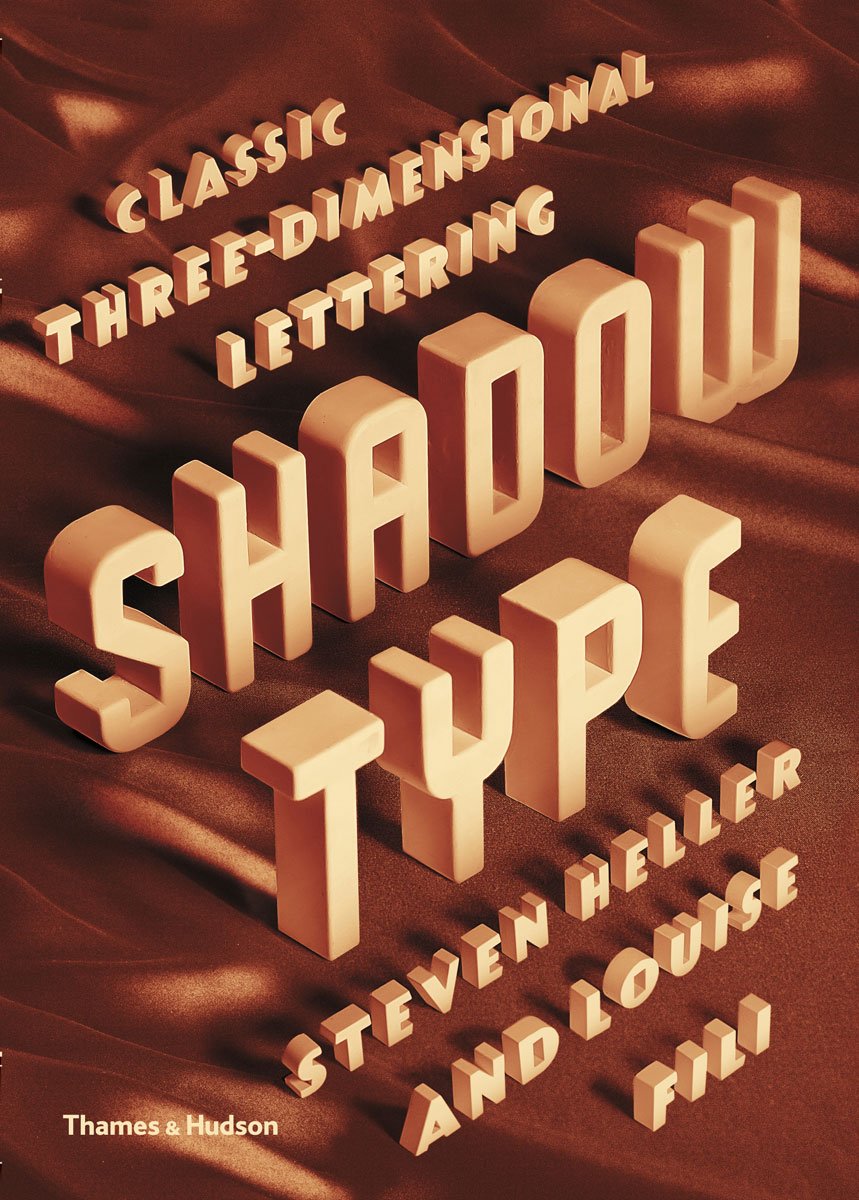
Shadow Type: Classic Three–Dimensional Lettering
Shadow typefaces are back in style, and the hundreds of inventive examples here – many uncovered from obscure sources across Europe and the United States – will inspire any designer seeking to make a strong statement.
Drawn from a rich period in the history of shadow type, from the 19th to the mid-20th century, this is the first compilation of popular, rare and forgotten three-dimensional letters from Germany, France, Britain, Italy and the United States.
With examples from some 300 sources compiled by the leading historian of graphic design, this lively book, packed full of typographic ideas, will enchant and inspire anyone aiming to impart depth to their design.